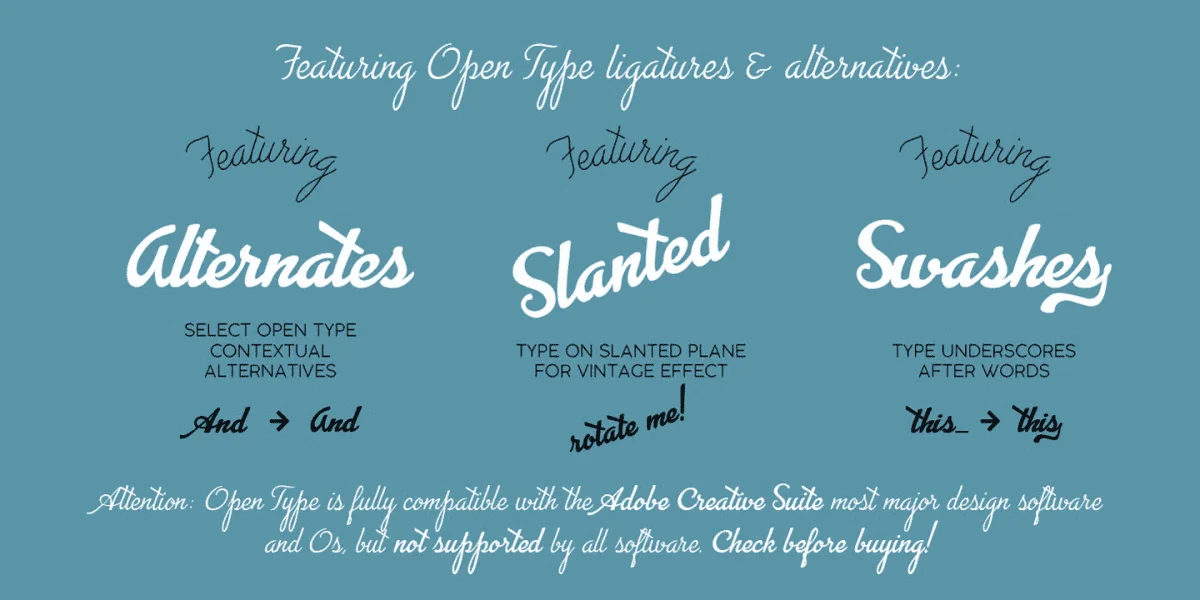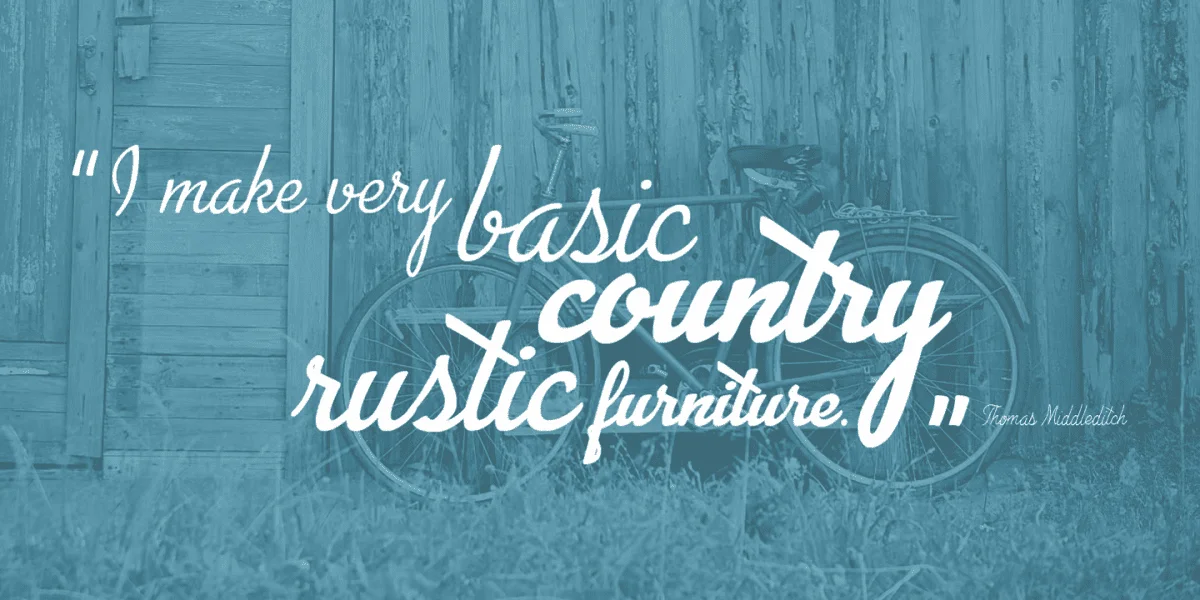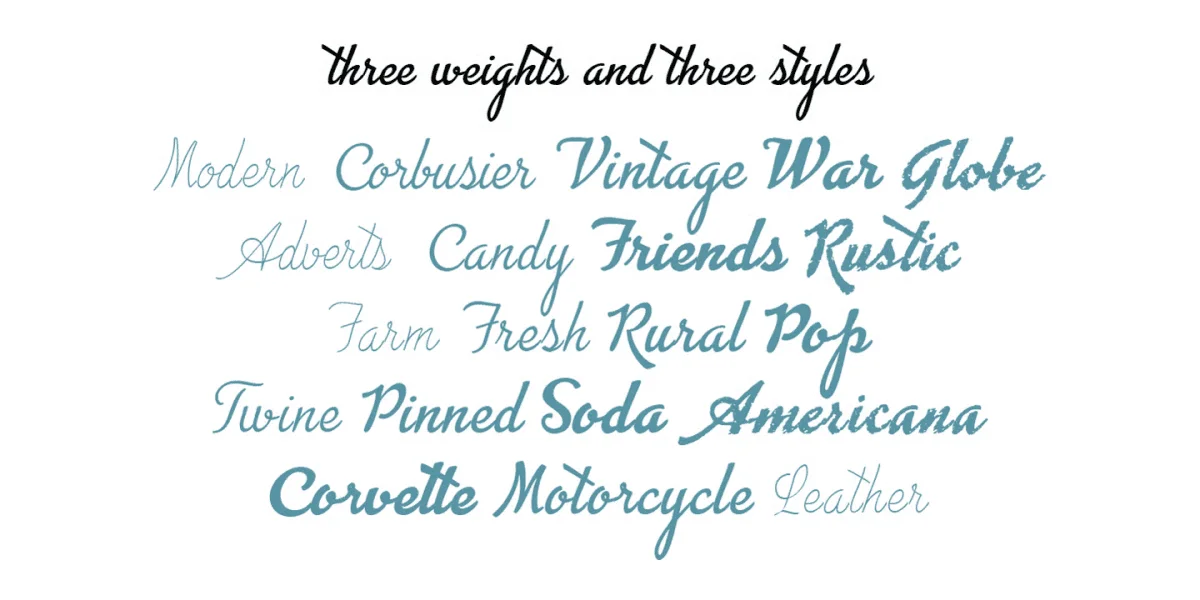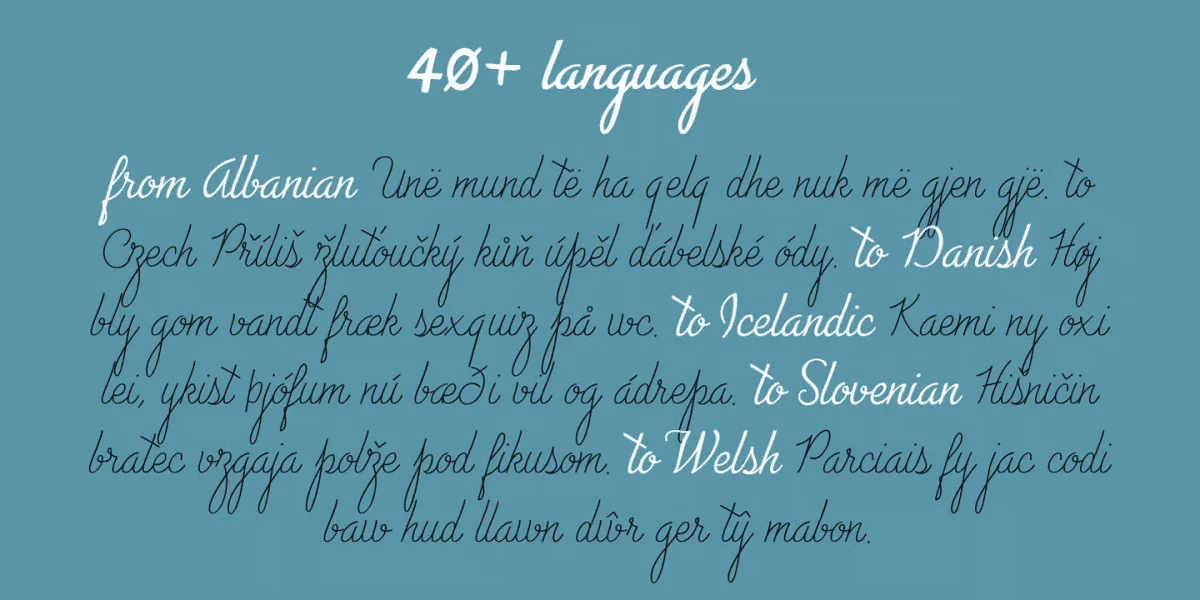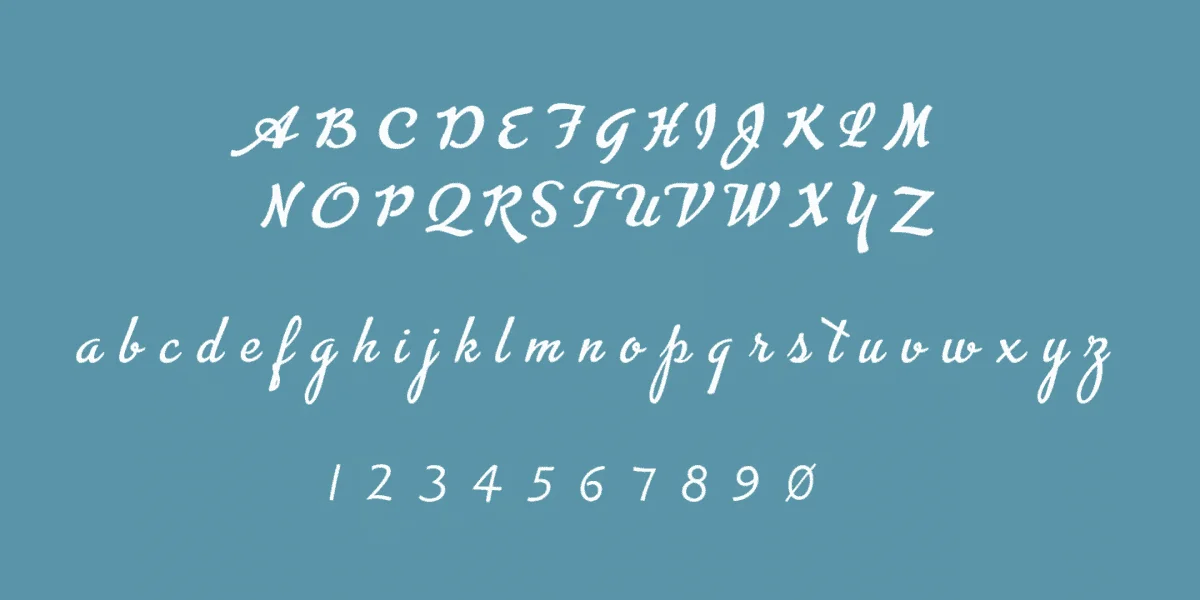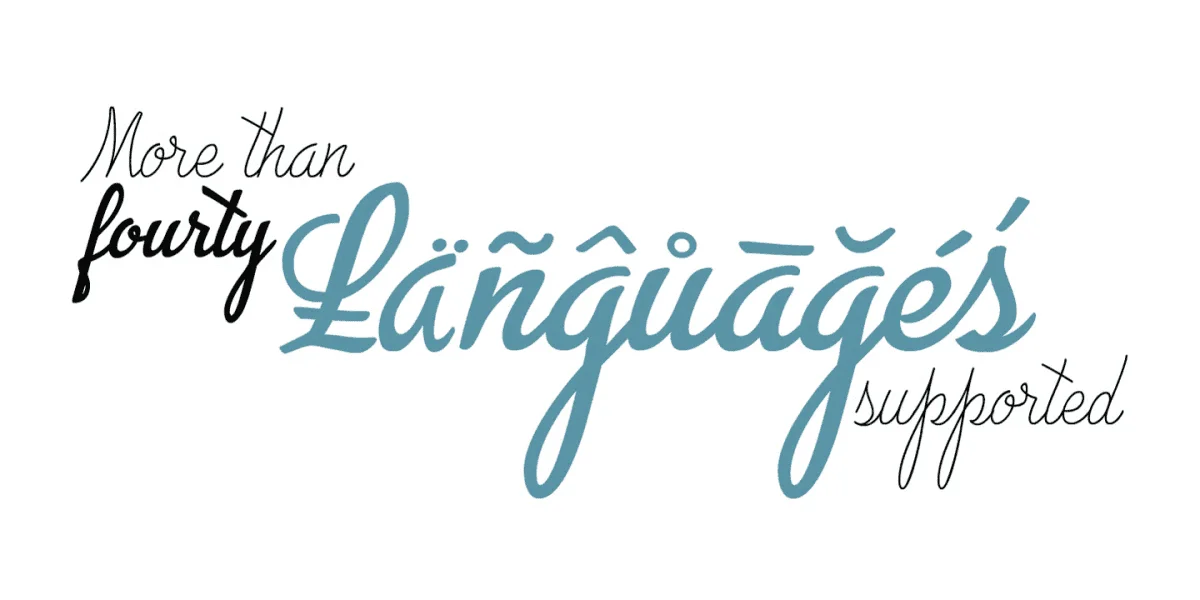
Advertsing Script is a brush script typeface inspired by a handmade sample drawn by the calligrapher Ross Frederic George and depicted in Speedball 1947 Textbook Manual. Advertsing Script has a vintage brush script look, perfect for food packaging, display and logo design and period advertising.
The full version of Advertising Script covers over 40 languages that use the Latin alphabet, with a full range of accents and diacritics. It comes in three weights plus a special monoline weight and a rough variant.
The original design has been completely reworked and extended by the Zetafonts Masterclass 2016 Team to provide three lighter weights, a rough and a monoline variant, and to produce an extended character set with open type support for ligatures, alternates, European languages and ending swashes.
The full version of Advertising Script makes full use of Open Type ligatures to provide swashes, alternates and a wide array of ligature characters for a more handmade, natural look. Swashes can be accessed through glyph palette or by typing one to six underscores after the letter. And ligature is accessed by typing double ampersand. Take care: open type features are developed using open type technology, fully compatible with Adobe software and major design softwares and OS, but not supported by every software. Check before buying!